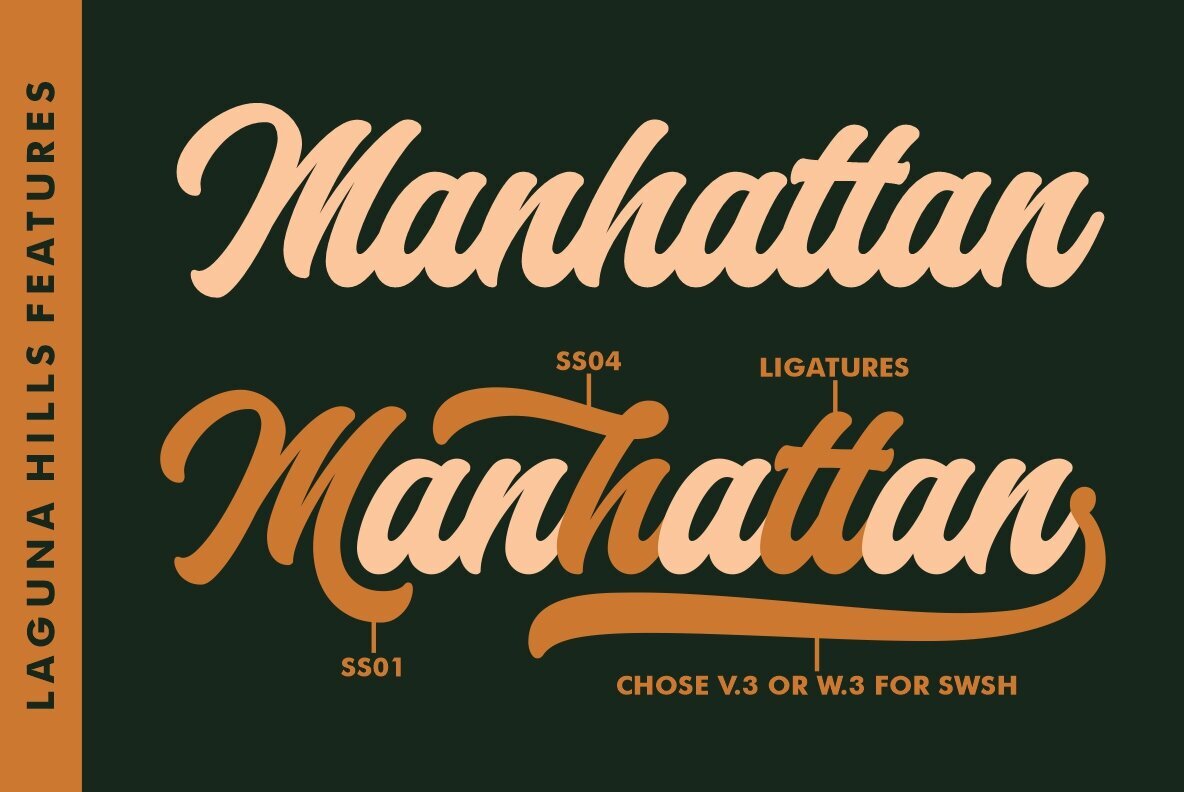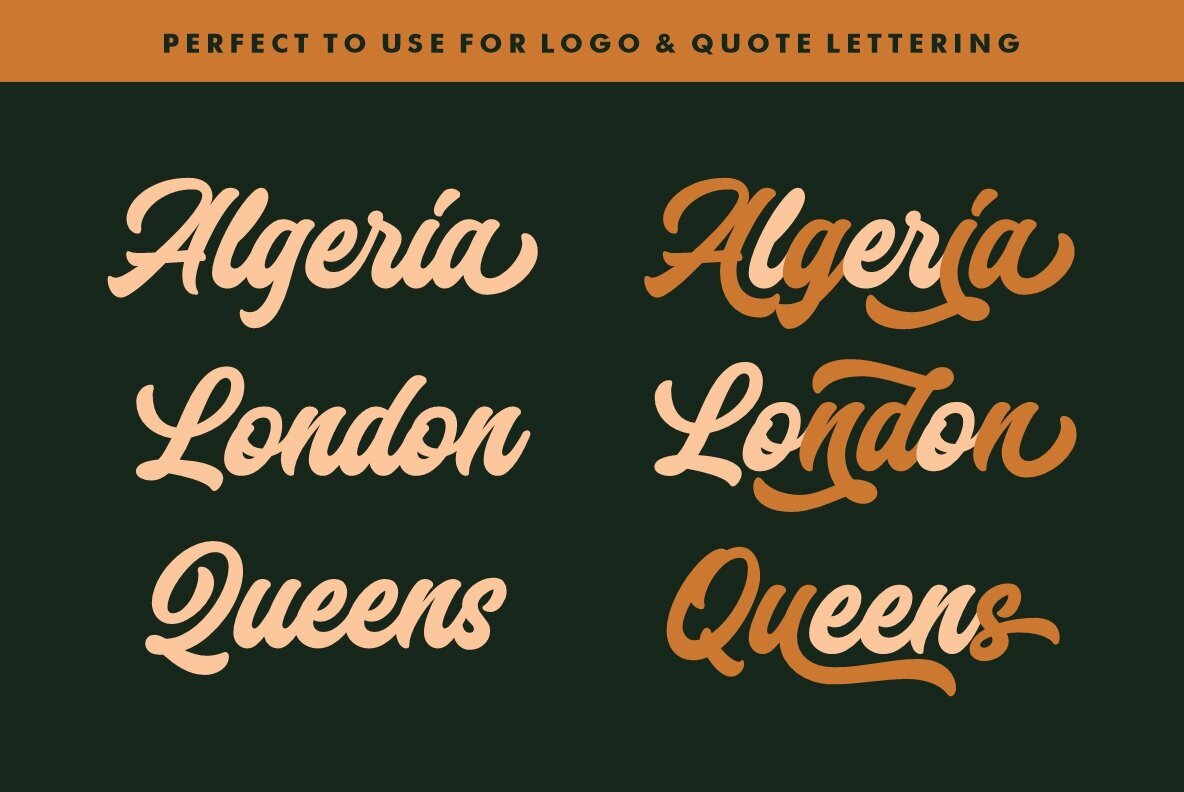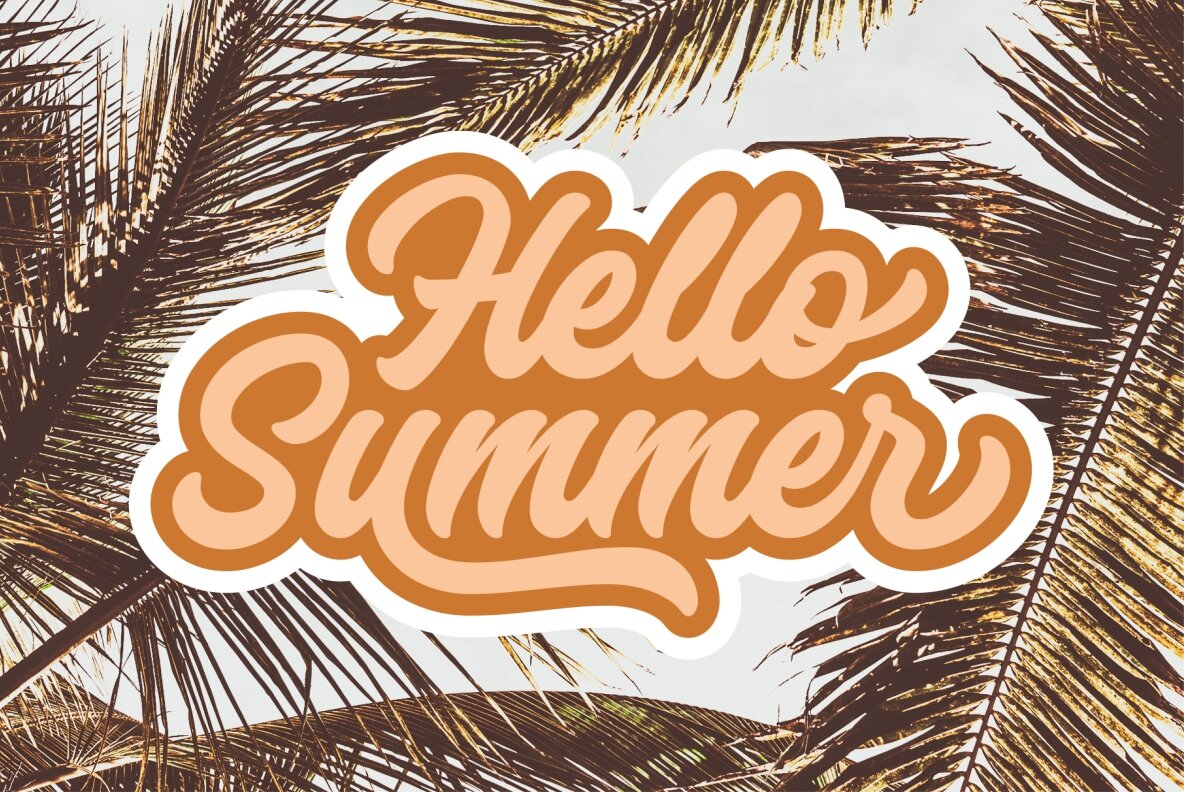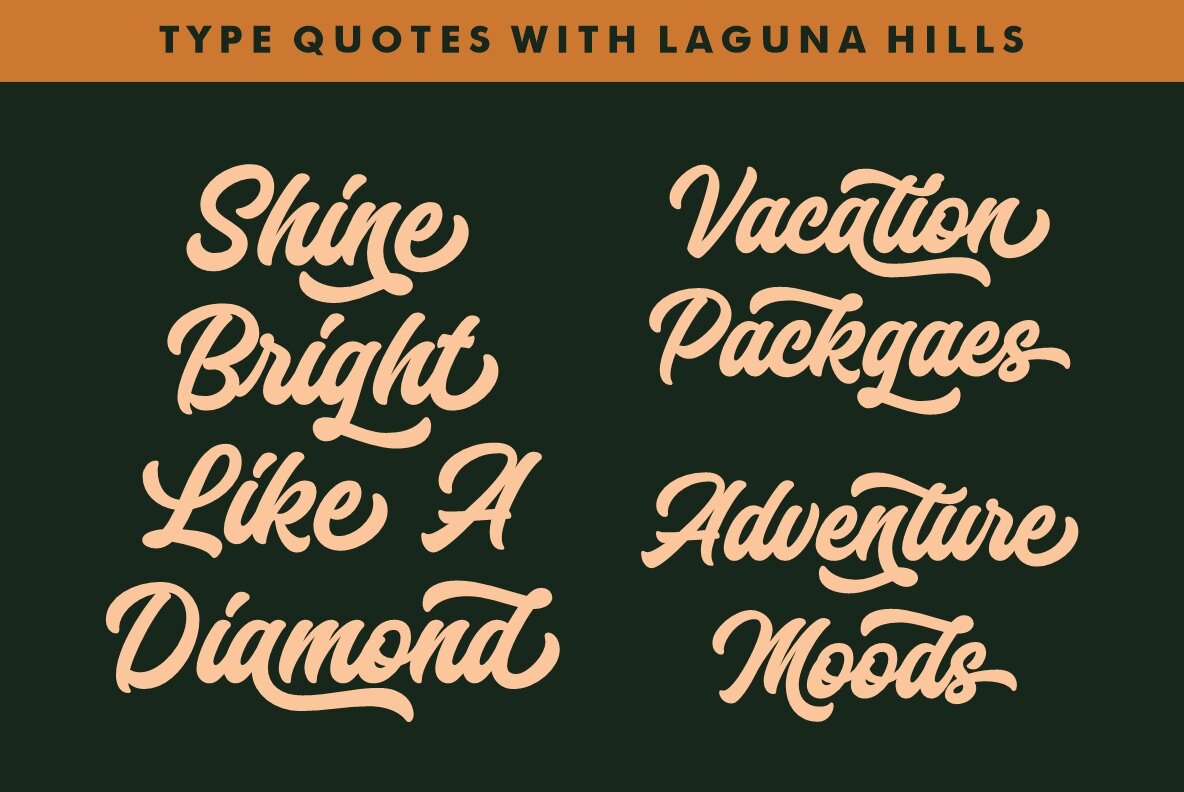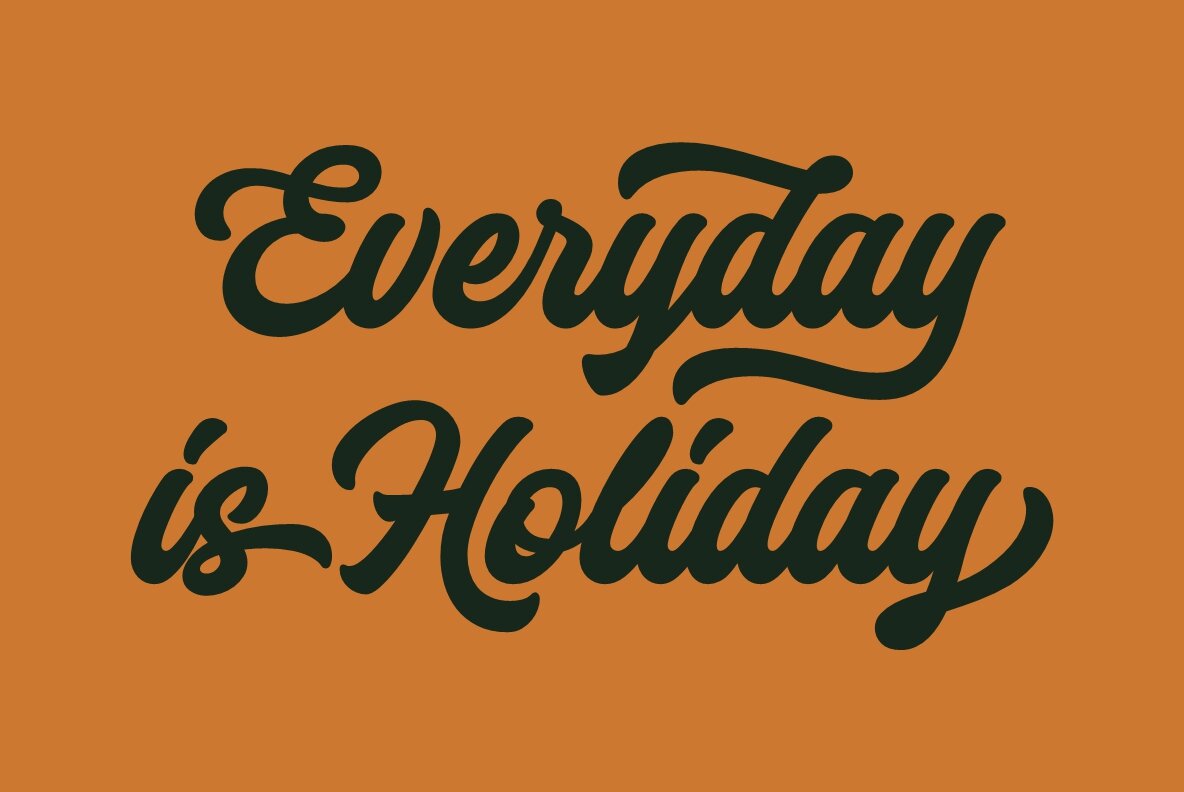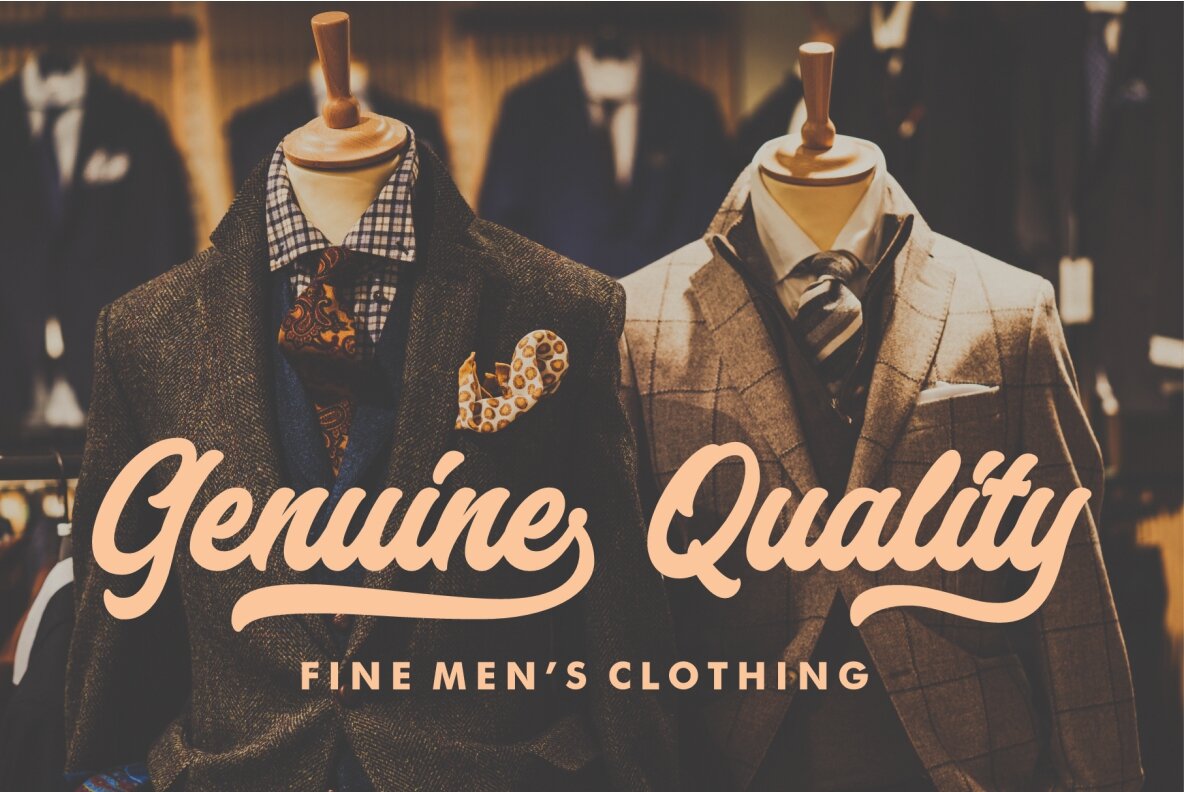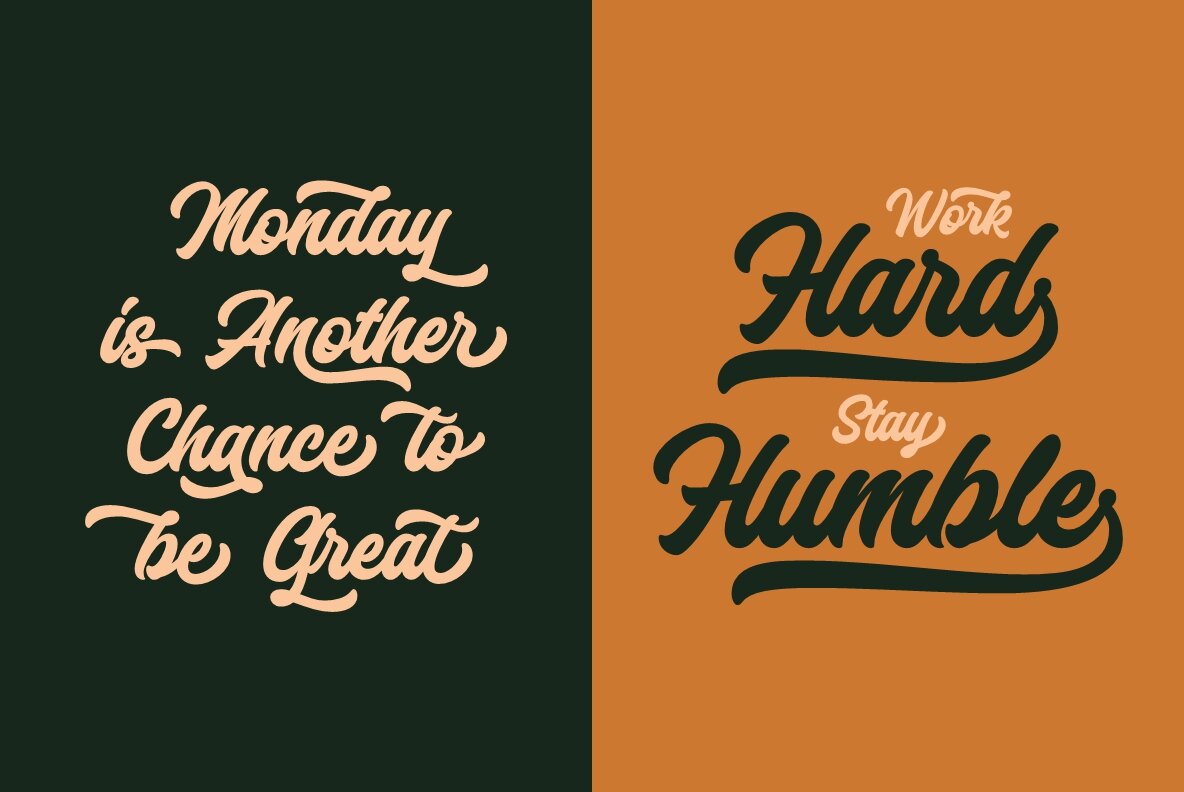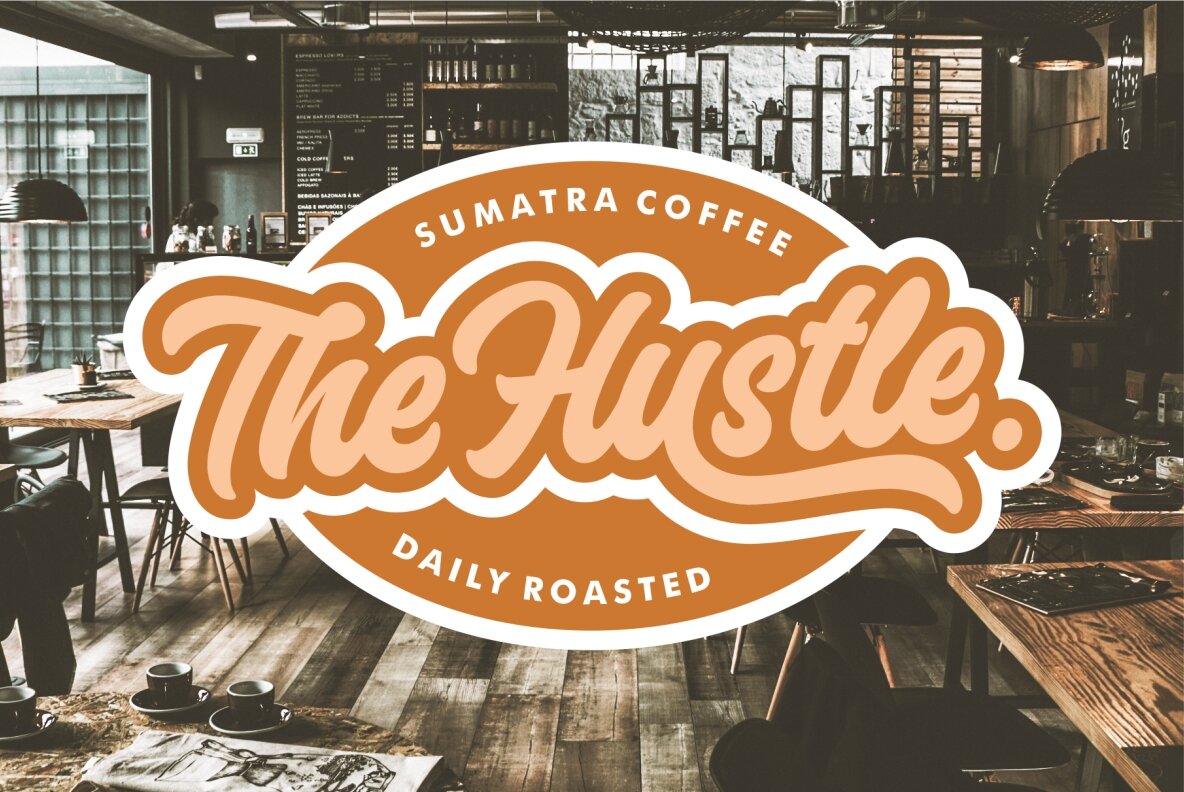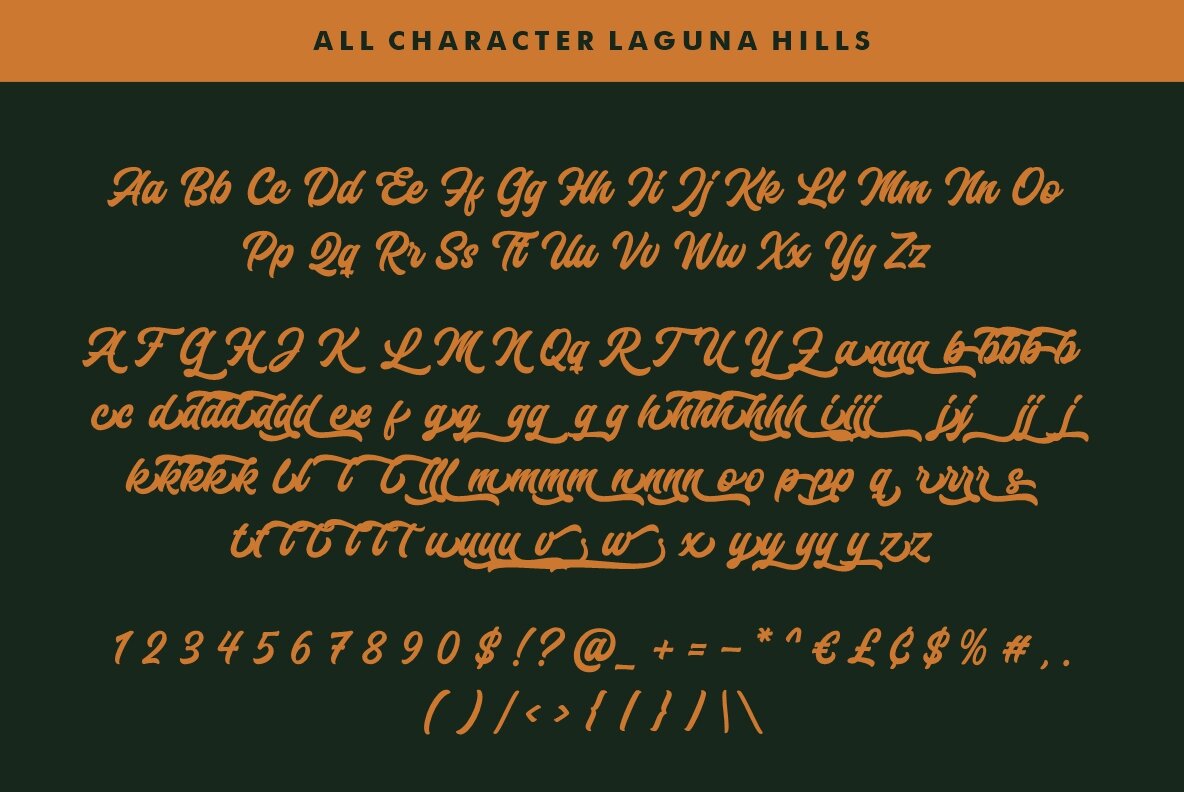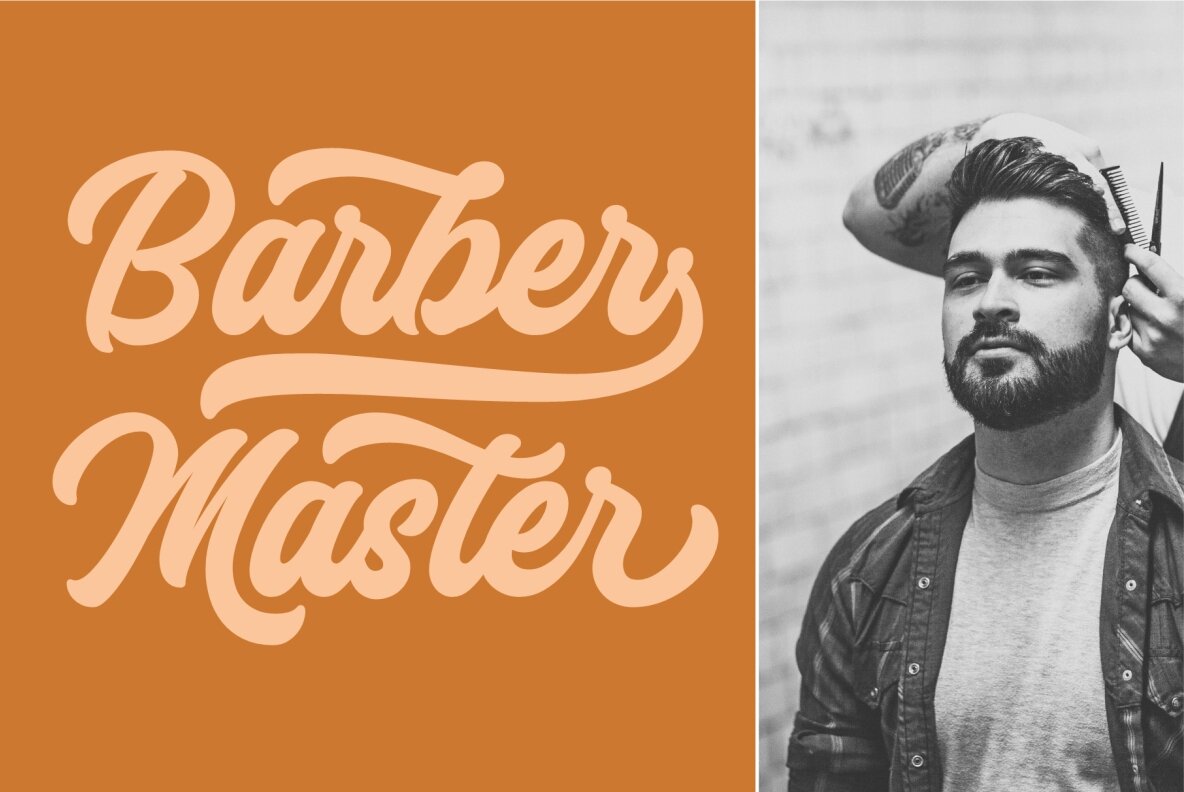
Laguna Hills: Dynamic Script Font with Elegant Flair
Laguna Hills is a connected script font that impresses with its seamless curves and clean lines. Ideal for hand-made typography, it adds an element of drama and movement to any design. Whether you're aiming for vintage charm or brush-style aesthetics, this font provides a unique touch that enhances visual appeal.
• Complete set of uppercase and lowercase characters
• Includes numbers and punctuation
• Ligatures for fluid connections
• Alternates for both upper and lowercase letters
• Decorative swashes for added style
• Supports multiple languages with multilingual symbols